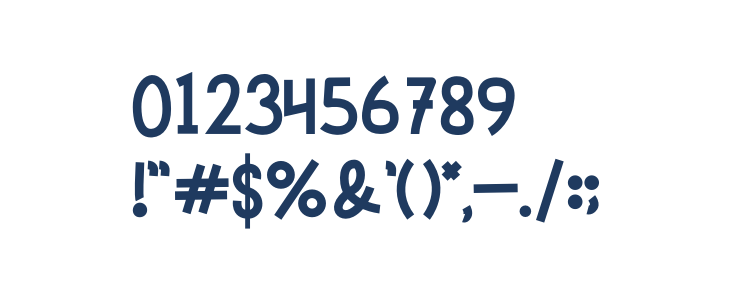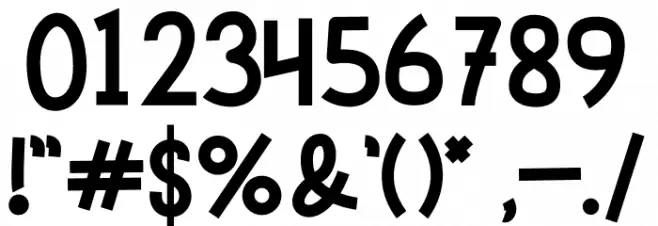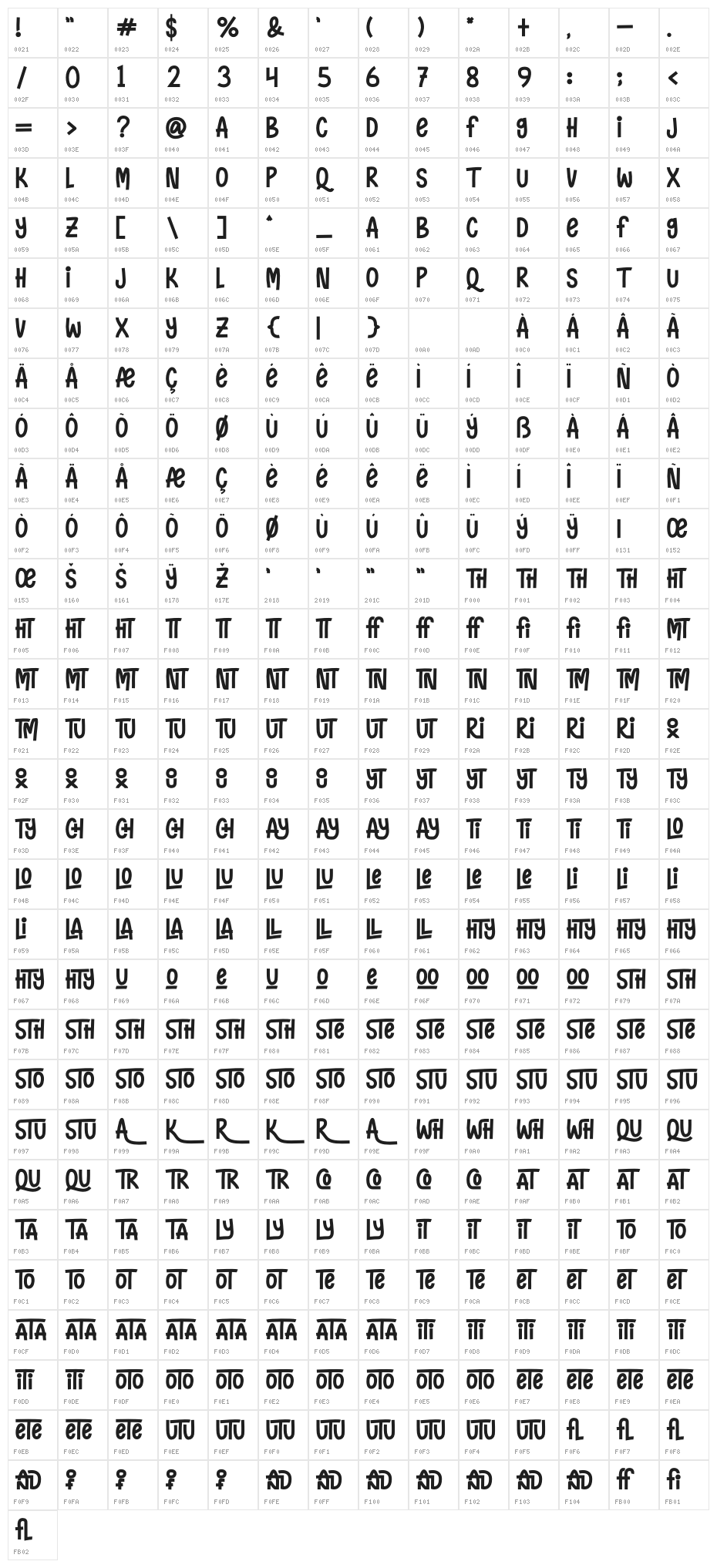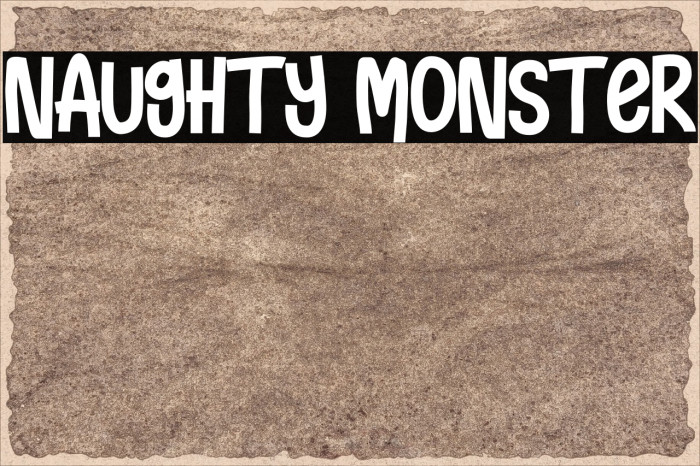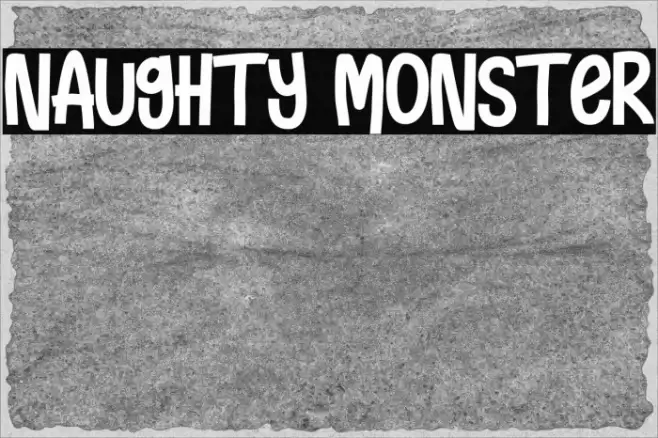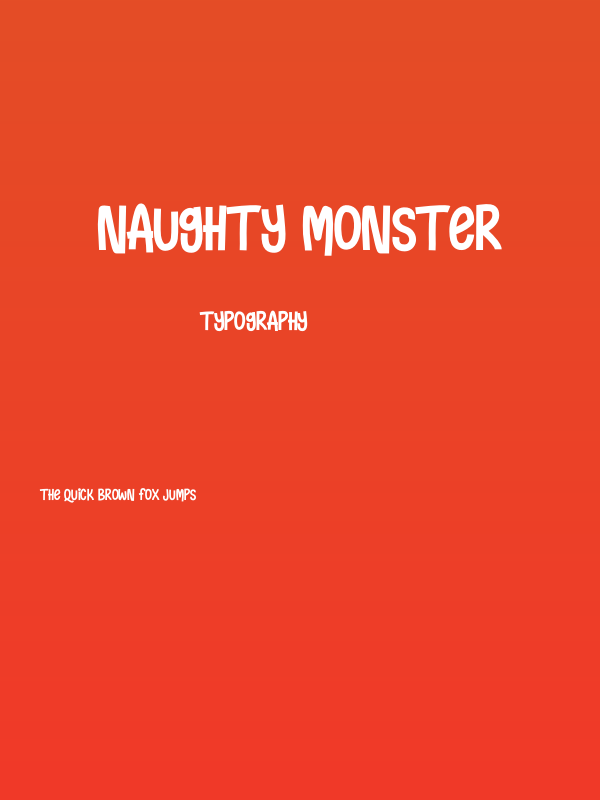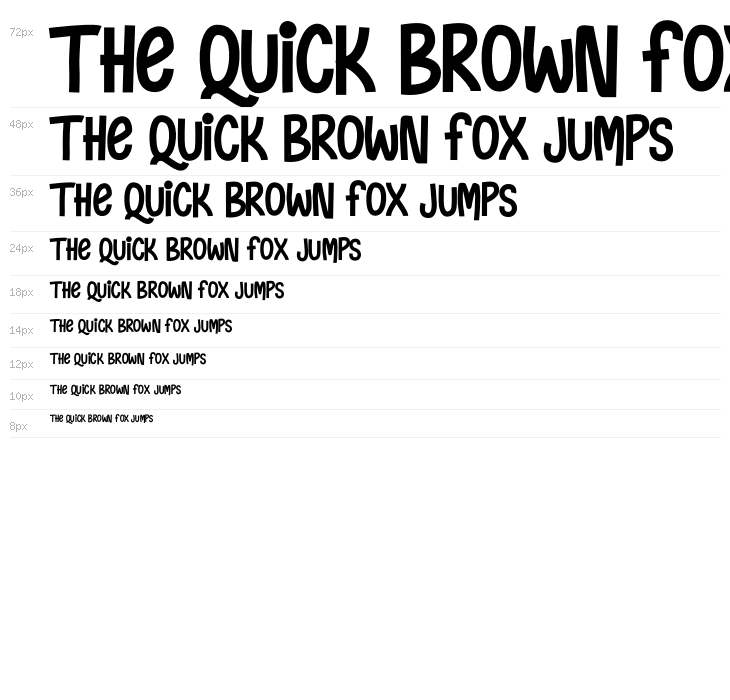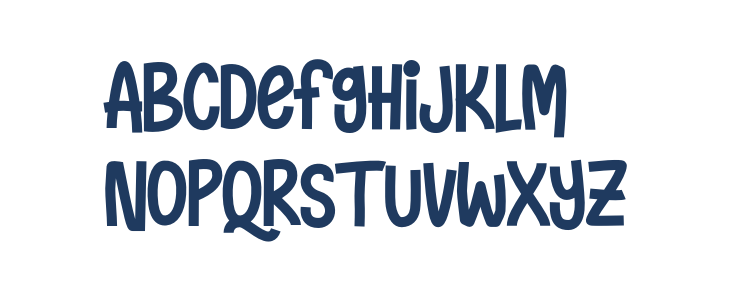
Naughty Monster Font
Naughty Monster Description
This playful and bold font features a whimsical, hand-drawn style with exaggerated curves and a slightly irregular baseline, giving it a lively and energetic appearance. The letters are thick and rounded, with a cartoonish flair that adds a sense of fun and creativity. The uppercase and lowercase characters maintain a consistent style, with the uppercase letters being slightly taller and more pronounced. The numbers and special characters follow the same playful design, making the font versatile for various creative projects. Its unique style makes it stand out, perfect for capturing attention and adding personality to any design.